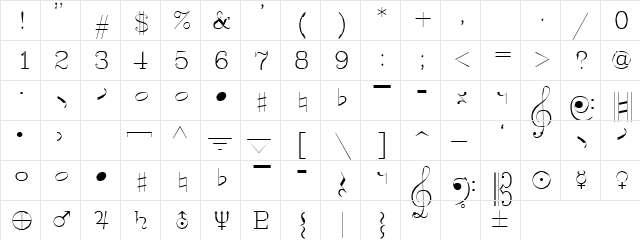
Symusic Regular
Design Context for Symusic Typeface
Symusic offers clean, dependable letterforms without strong stylistic allegiance, making it a practical choice for designers who need flexibility.